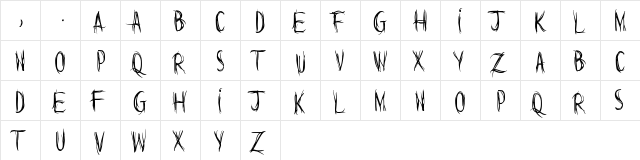
Words are but wind Regular
| Foundry | Le Thi Thu Huong |
| Designer | Le Thi Thu Huong |
Design Context for Words are but wind Typeface
Words are but wind is a composed and adaptable typeface that performs quietly and consistently across a wide range of design contexts.